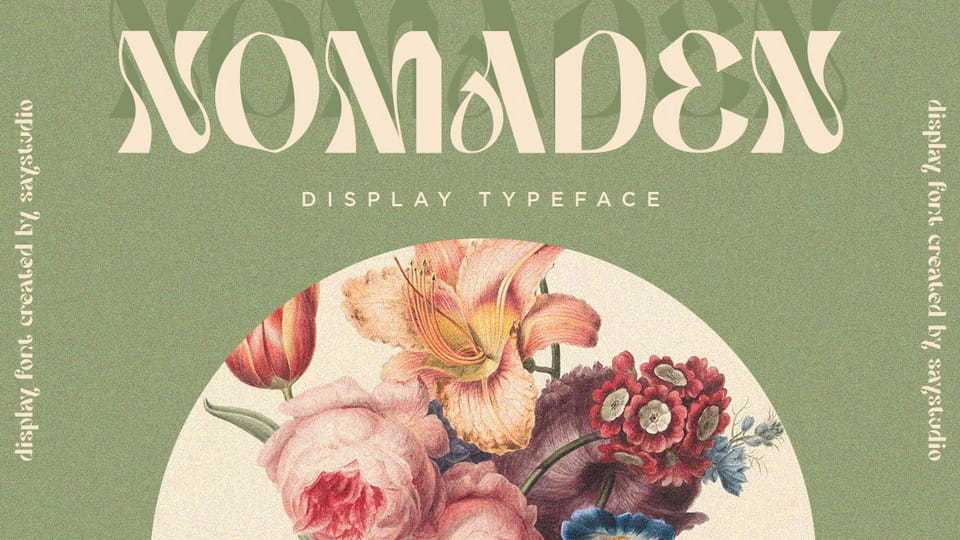
Download Nomaden font, a distinctive display typeface: perfect for adding a unique touch to logos, brand identity, or modern typographic designs.
Designer: Saystudio